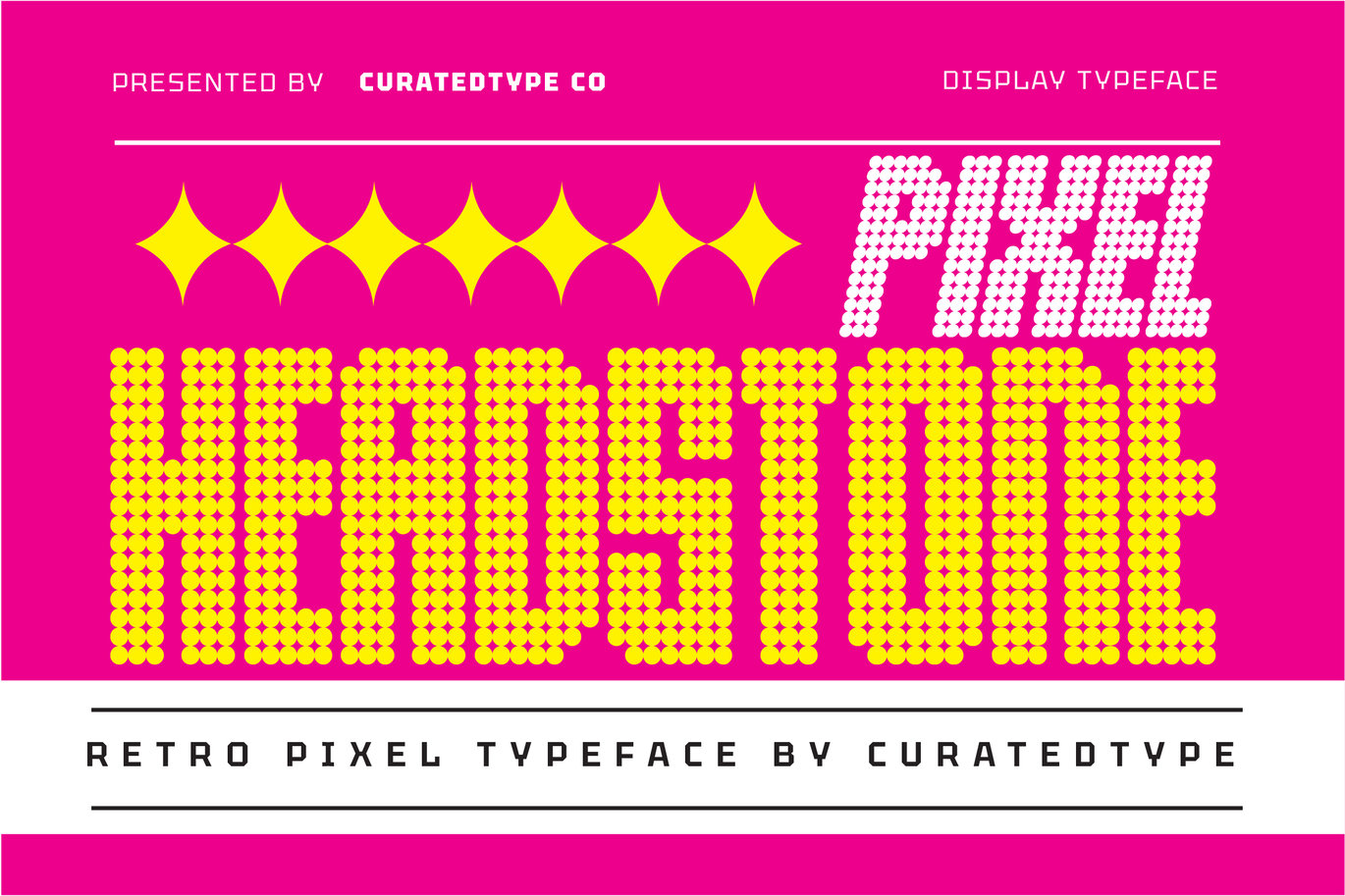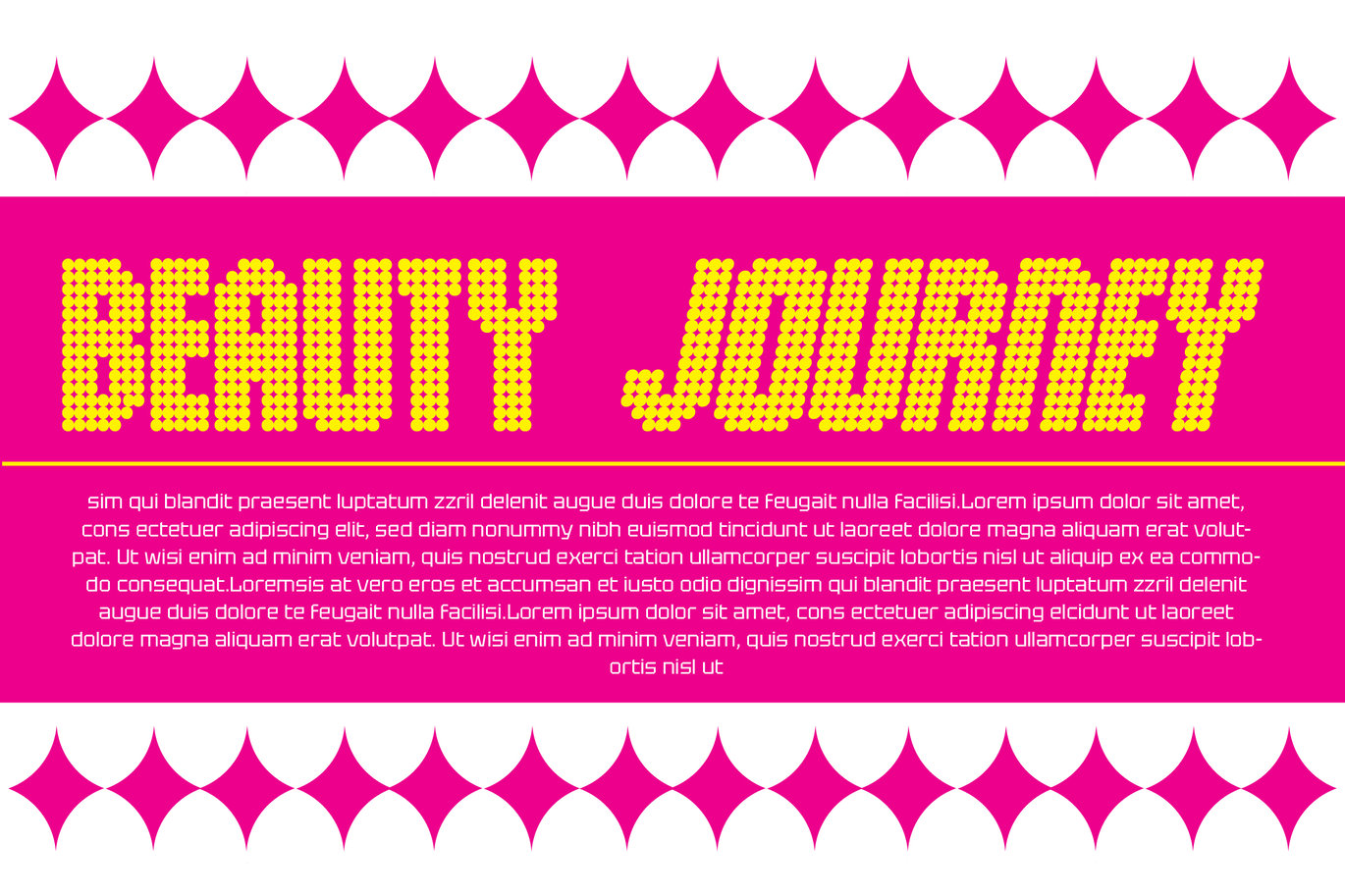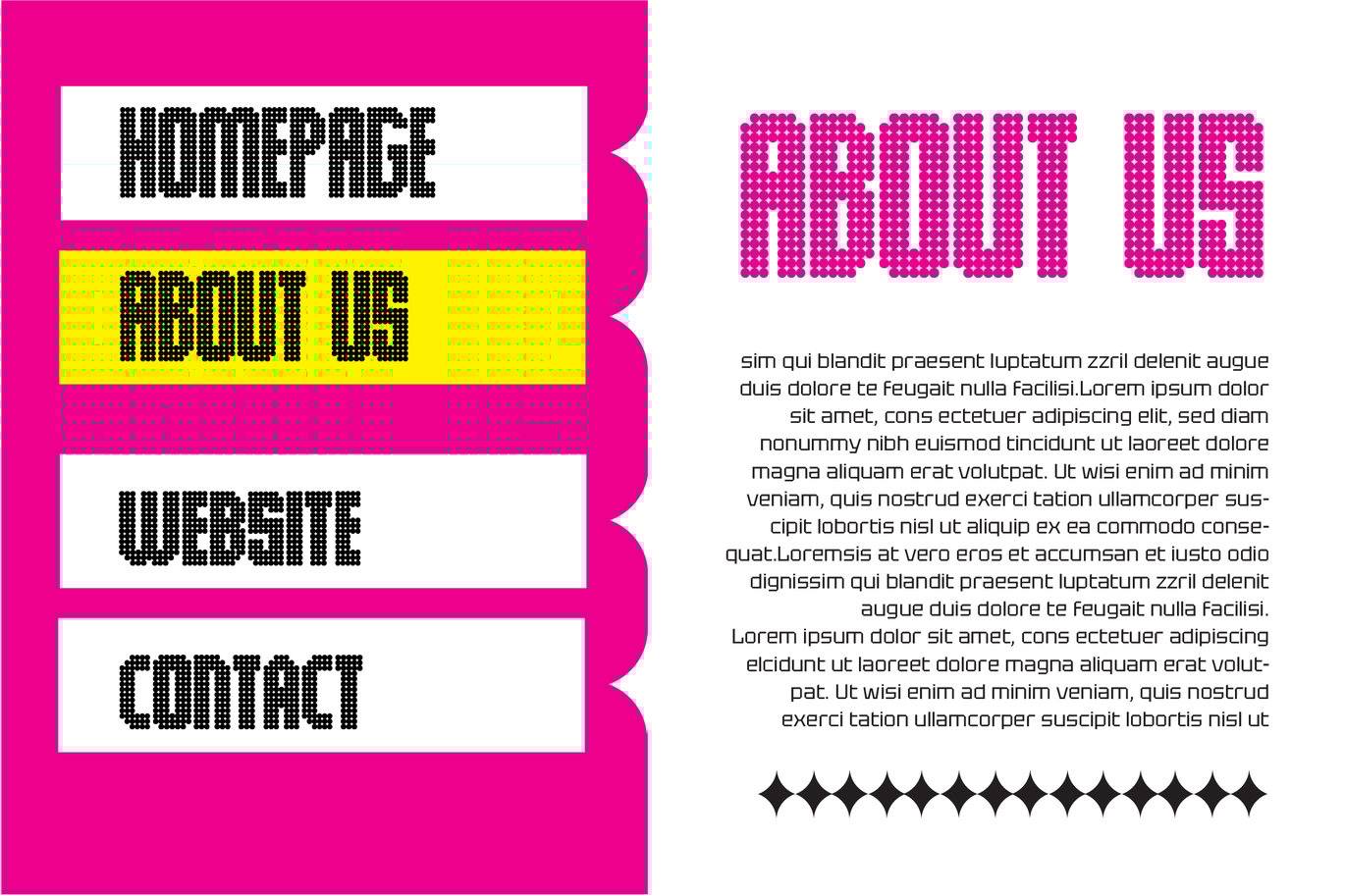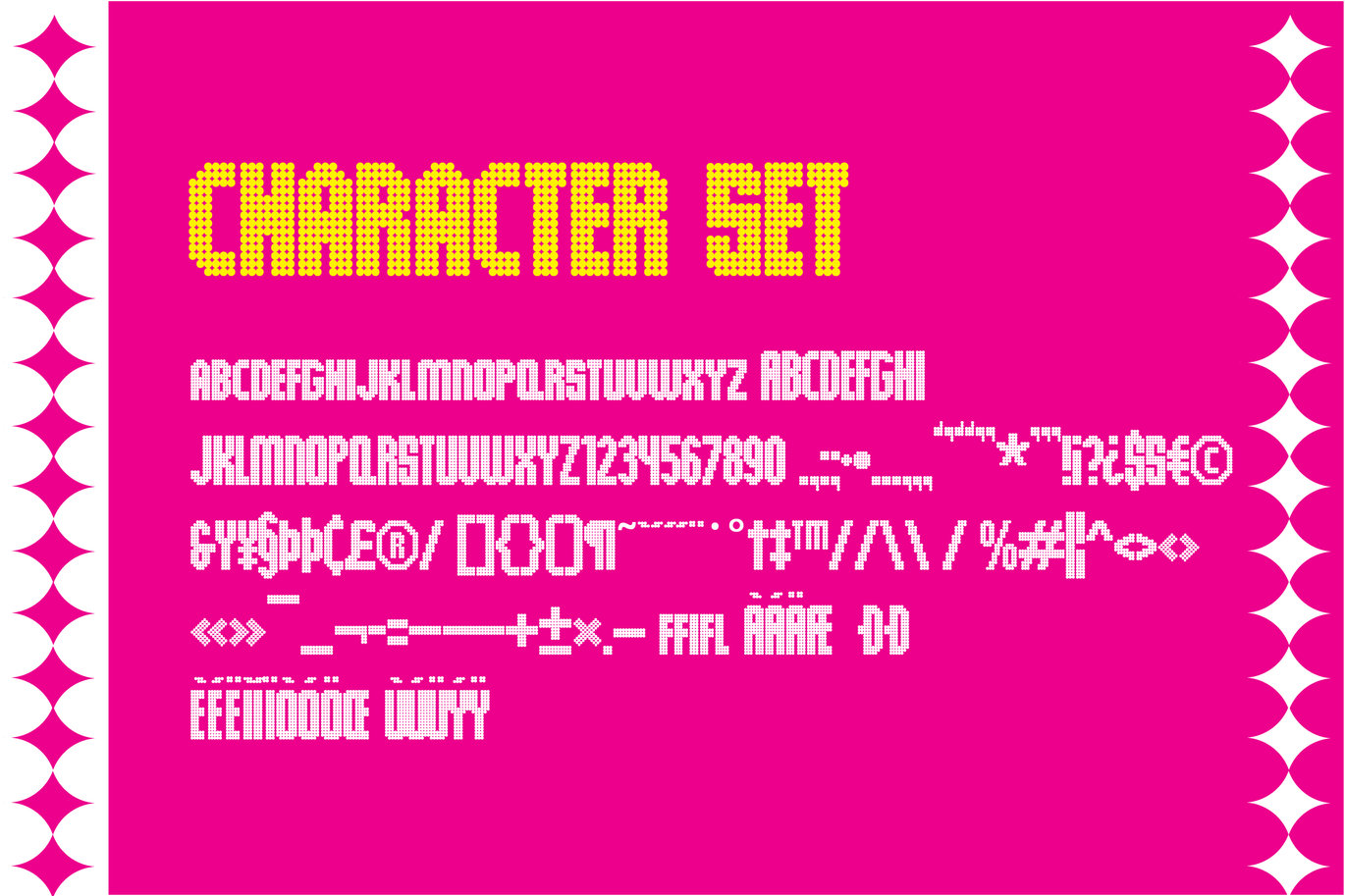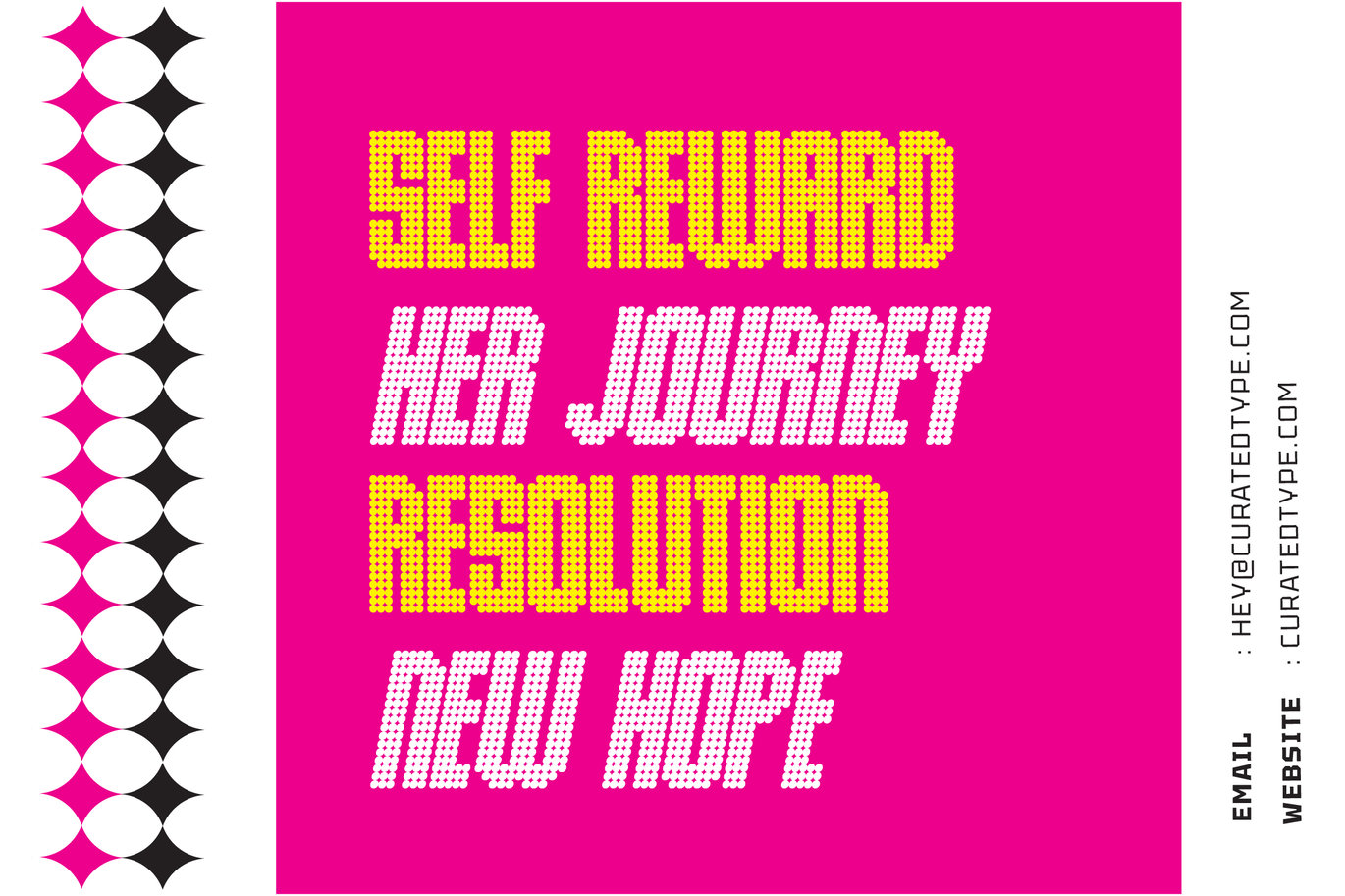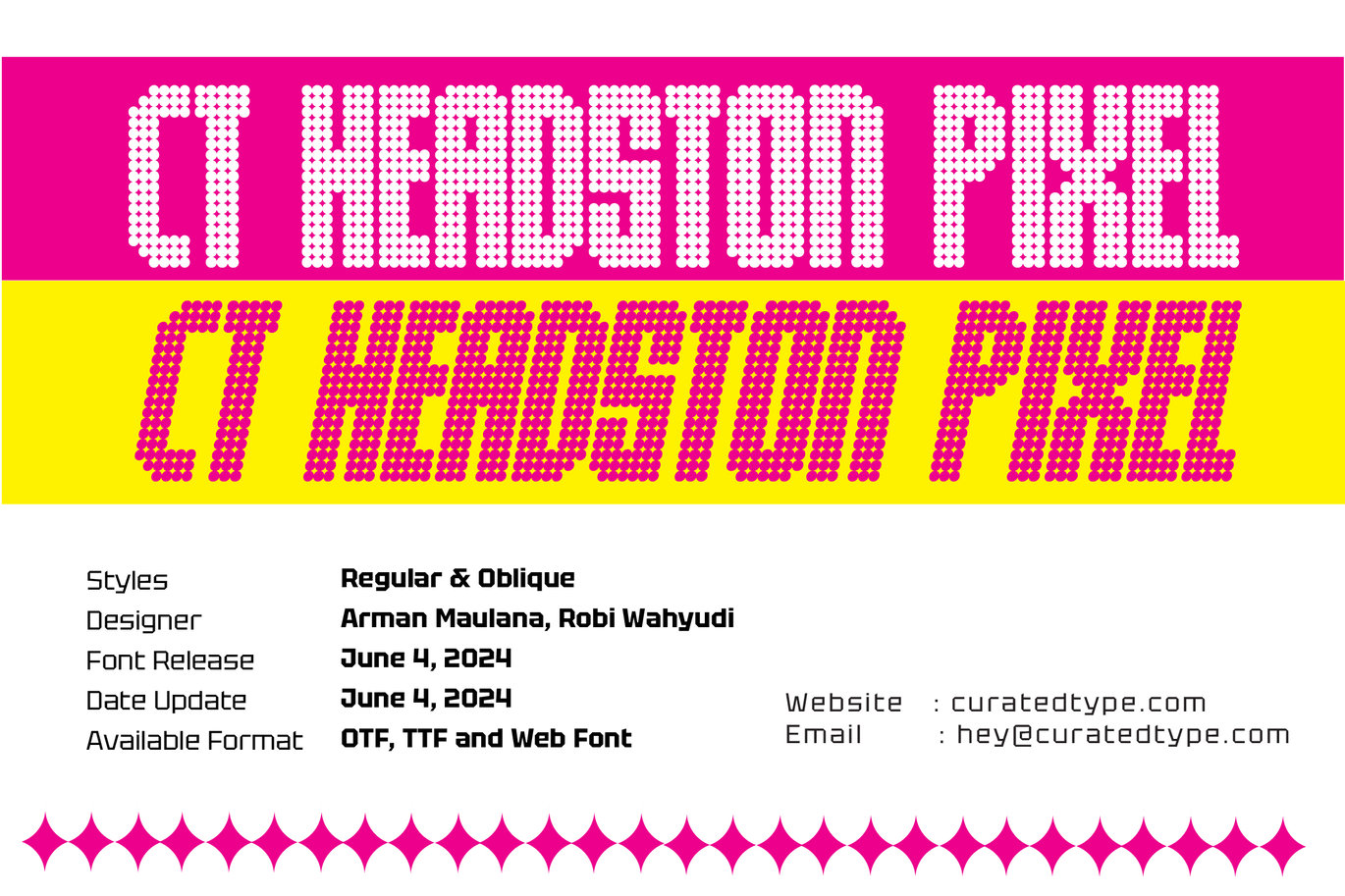
Headston Pixel – Futuristic Display Font
Bring forth the CT Headston Pixel Futuristic Display Font Font served as an inspiration. The sans serif typeface Headston Pixel is narrow and tall. If you want your creative ideas to stand out, try adding it to your list of possibilities; it works with a huge variety of tasks.
Headston Pixel is a beautiful choice for any creative endeavor, retro or vintage design, lifestyle design such as logos, title, cover, branding, display, business card, magazine, poster, film/movie and more. Now you using Maderon to elevate you design or branding.